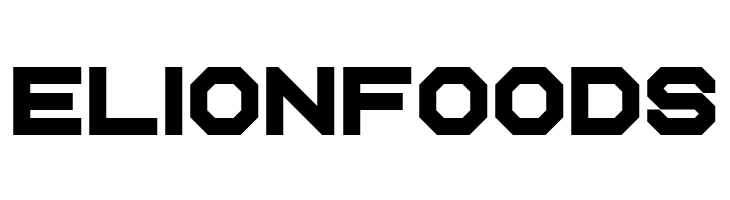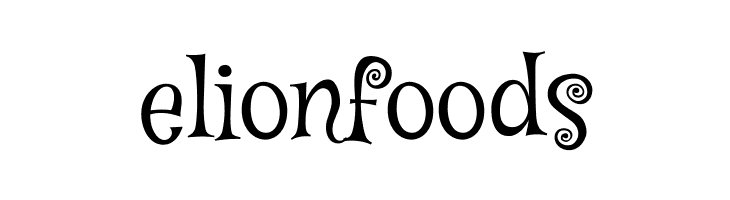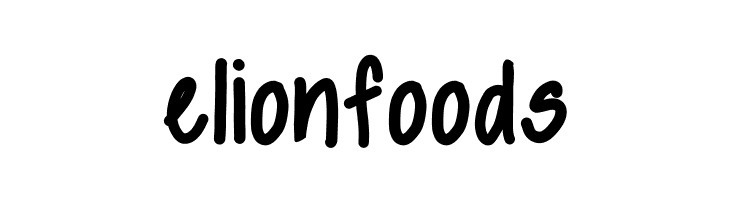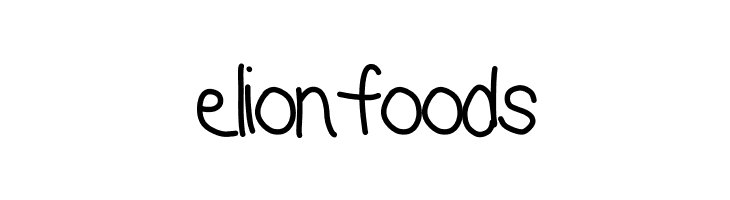
A playful, informal handwritten font with irregular strokes and a casual appearance.
A whimsical font with curly, decorative elements, perfect for magical or fantasy themes.
A casual, handwritten font with a playful and approachable style.
A bold, geometric font with angular, industrial design.